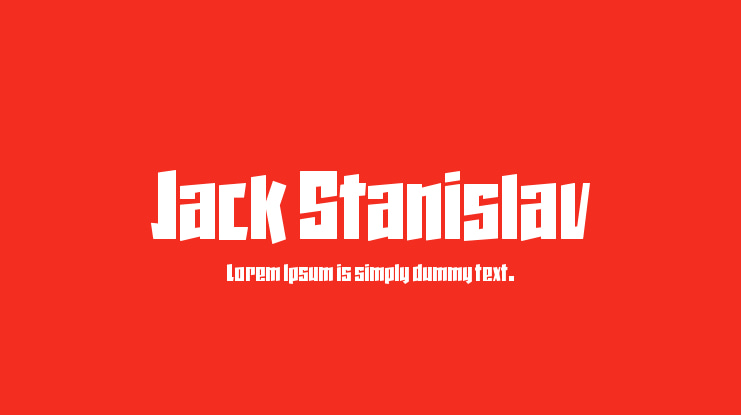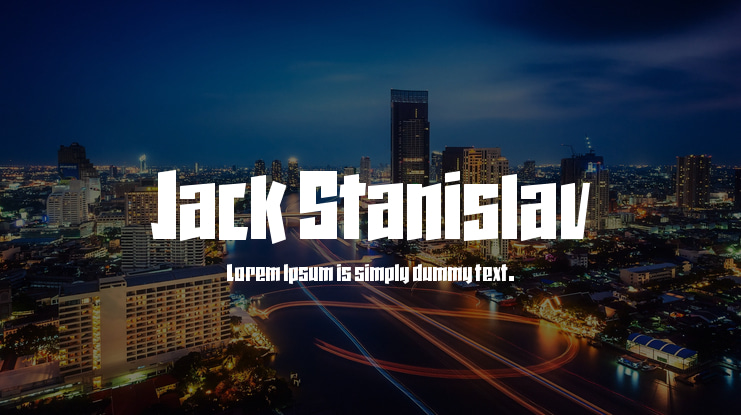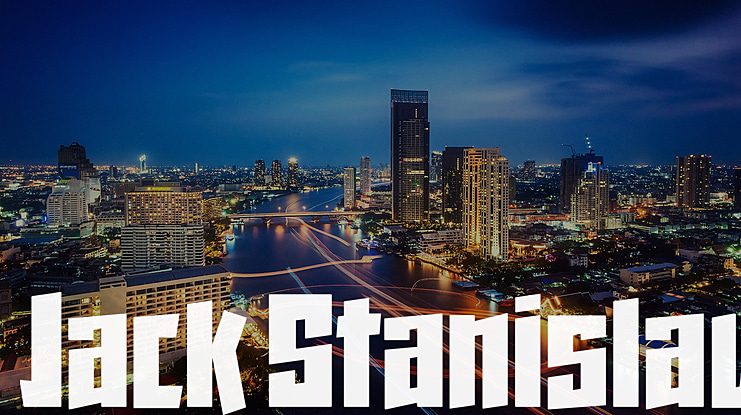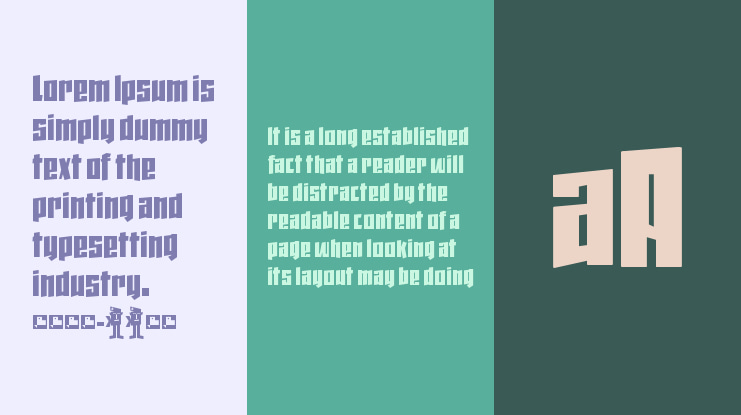
Jack Stanislav Font
Very condensed typography, thick line and fun look for headlines and advertising where you are looking for saving space and originality at the same time.